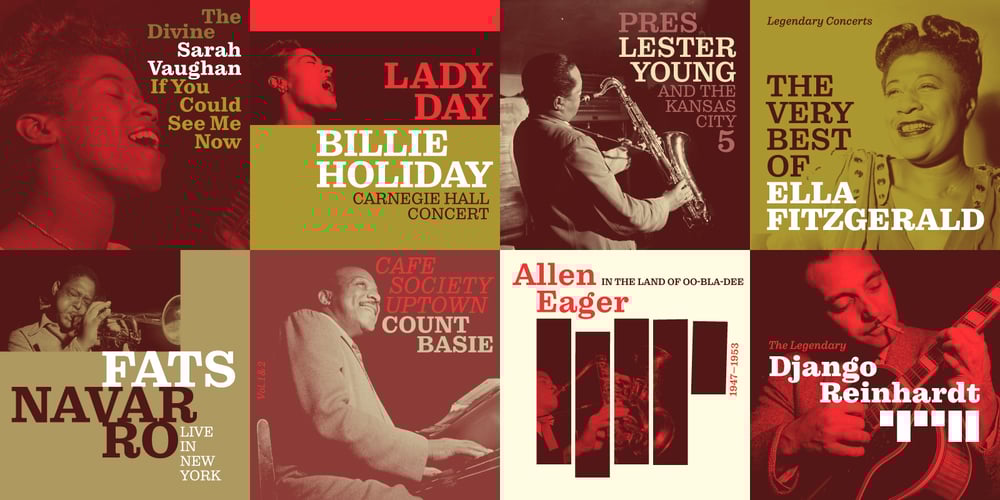
Pulpo
Pulpo font
Pulpo Font Family was designed by Felix Braden and published by Floodfonts. Pulpo contains 10 styles and family package options. A friendly and comfortable typeface inspired by Century Schoolbook and Clarendon. Despite the strength and sturdiness of the design, each letter shape carries warmth and an echo of the human hand, concealing some nostalgia. The family is ideally suited for editorial, advertising and packaging as well as web and app design. A massive body combined with low stroke contrast, make it very suitable on screen and for small text sizes on newsprint paper. For more information visit the microsite.